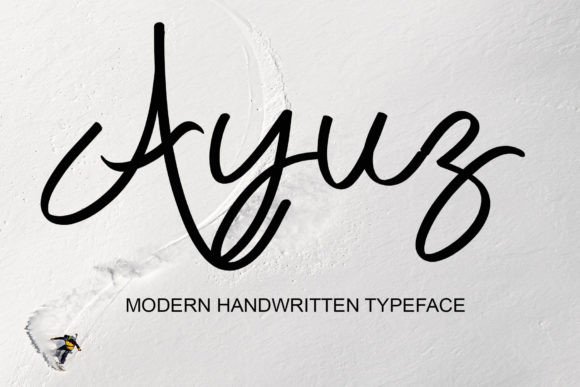
Immerse yourself in the enchanting world of Ayuz Font, where elegance and charm dance together in perfect harmony. This delicate handwritten font is a testament to the artistry of Canden Meutuah, who has meticulously crafted each letter to be a masterpiece.
With its graceful strokes and well-balanced proportions, Ayuz Font is a visual delight that will elevate your creative projects to new heights. Its versatility extends across a wide range of applications, from personal journaling and love letters to eye-catching branding and social media posts.
Let your imagination soar as you explore the endless possibilities of Ayuz Font. Its flowing lines and intricate details will add a touch of sophistication and uniqueness to your designs. Whether you're creating invitations, greeting cards, logos, or website headers, Ayuz Font will transform your words into works of art.
Step into the extraordinary realm of Ayuz Font, where beauty and functionality intertwine. Experience the joy of seamless writing, where each letter glides effortlessly onto the page, forming words that dance with elegance and charm.
Don't settle for ordinary fonts that blend into the background. Embrace the allure of Ayuz Font and watch as your creative projects blossom into stunning masterpieces. Its timeless beauty will captivate your audience and leave a lasting impression.